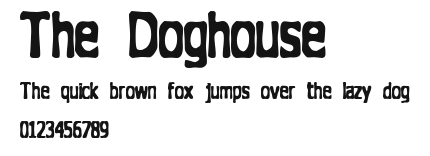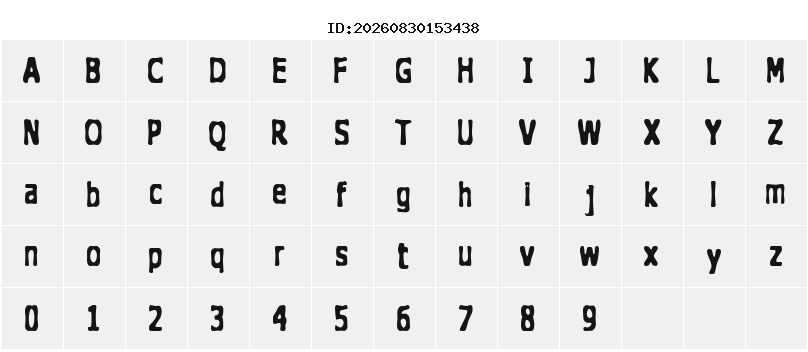
• Font Name: The Doghouse
• Full Font Name: The Doghouse
About The Doghouse.ttf
The Doghouse.ttf is a modern, elegant sans-serif font designed for ultimate readability and visual harmony. Perfect for branding, headlines, web design, and print materials.